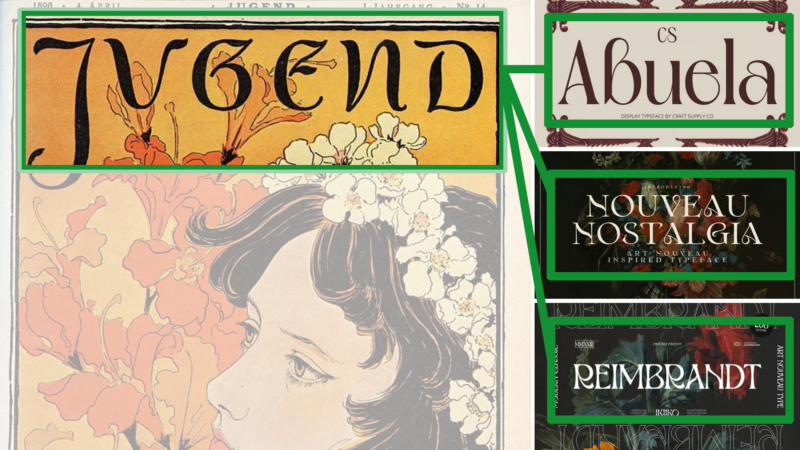
There’s something magical about the way Art Nouveau fonts capture the spirit of an era that celebrated organic beauty and artistic craftsmanship.
Art Nouveau fonts aren’t just beautiful—they’re storytellers that transport us back to the late 19th and early 20th centuries, when artists rebelled against industrial minimalism and embraced the sensual curves found in nature.
Unlike their geometric cousins, Art Deco fonts, which emerged later with bold symmetry and machine-age precision, Art Nouveau typefaces flow with a whimsical organic energy that feels almost alive.
In this deep dive, we’ll explore the most stunning Art Nouveau fonts that designers are falling in love with in 2026. We’ll uncover what makes these typefaces so special, when to use them, and how they compare to other historical styles. So grab your favorite beverage, and let’s embark on this typographic journey through the elegance of Art Nouveau!
22 Most Enchanting Art Nouveau Fonts
Let’s start with my carefully curated selection of Art Nouveau fonts that are making waves in the design world right now:
Reimbrandt
Reimbrandt is an elegant Art Nouveau-inspired serif font that combines vintage charm with modern sophistication. Its graceful curves and ornate details make it perfect for creating eye-catching headlines and logos with a touch of retro flair.
Nouveau Nexus
Nouveau Nexus is a striking vintage display font that captures the essence of early 1900s typography. With its decorative serifs and bold character, this font is ideal for creating nostalgic designs and evoking a sense of timeless elegance.
Art Nouveco
Art Nouveco is a decorative font that seamlessly blends Art Nouveau aesthetics with contemporary design sensibilities. Its unique letterforms and ornamental details make it an excellent choice for creating distinctive text treatments and eye-catching headlines.
Nouveau Nostalgia
Nouveau Nostalgia is an elegant and stylish serif typeface inspired by the Art Nouveau movement. Its refined letterforms and graceful curves make it perfect for high-end branding, editorial designs, and projects that require a touch of sophisticated nostalgia.
Abuela
Abuela is a captivating Art Nouveau-inspired serif font that exudes charm and character. Its distinctive letterforms and ornate details make it an excellent choice for creating memorable logos and attention-grabbing headlines with a vintage twist.
Varelle
Varelle is a beautiful Art Nouveau serif font that combines elegance with a touch of whimsy. Its graceful curves and delicate details make it perfect for beauty-related designs, invitations, and projects that require a soft, feminine aesthetic.
CS Bloom
CS Bloom is an artistic Art Nouveau serif font that captures the organic, flowing lines of the movement. Its unique letterforms and floral-inspired details make it ideal for creating designs with a romantic, nature-inspired feel.
CS Blair
CS Blair is a timeless Art Nouveau serif font that strikes a perfect balance between elegance and readability. Its clean lines and subtle decorative elements make it versatile for both display and body text, suitable for a wide range of design projects.
Chako
Chako is an elegant Art Nouveau serif font that exudes sophistication and charm. Its graceful curves and refined details make it perfect for high-end branding, editorial designs, and projects that require a touch of vintage luxury.
CS Forest
CS Forest is a unique Art Nouveau-inspired sans-serif font that combines organic shapes with a modern sensibility. Its graceful and fluid letterforms make it ideal for creating designs with a natural, artistic feel, perfect for eco-friendly brands and nature-themed projects.
De Arloy Typeface
De Arloy is a decorative typeface that reimagines Art Nouveau style for the modern era. Its intricate details and Victorian-inspired flourishes make it perfect for creating ornate designs, tattoo art, and projects that require a bold, vintage-meets-contemporary aesthetic.
Lucilo
Lucilo is a sophisticated Art Nouveau serif font that combines classic elegance with modern refinement. Its well-balanced letterforms and subtle decorative elements make it versatile for both headlines and body text, ideal for luxury branding and high-end design projects.
Enoway Pro
Enoway Pro is a modern Art Deco sans-serif font that bridges the gap between vintage and contemporary design. Its clean lines and geometric shapes make it perfect for creating sleek, sophisticated designs with a nod to the glamour of the Art Deco era.
So next time you’re looking for typography with personality and historical depth, consider the flowing elegance of Art Nouveau. In a world increasingly dominated by geometric simplicity, these organic, expressive letterforms offer a refreshing reminder that typography can be both functional and beautifully, unabashedly artistic.